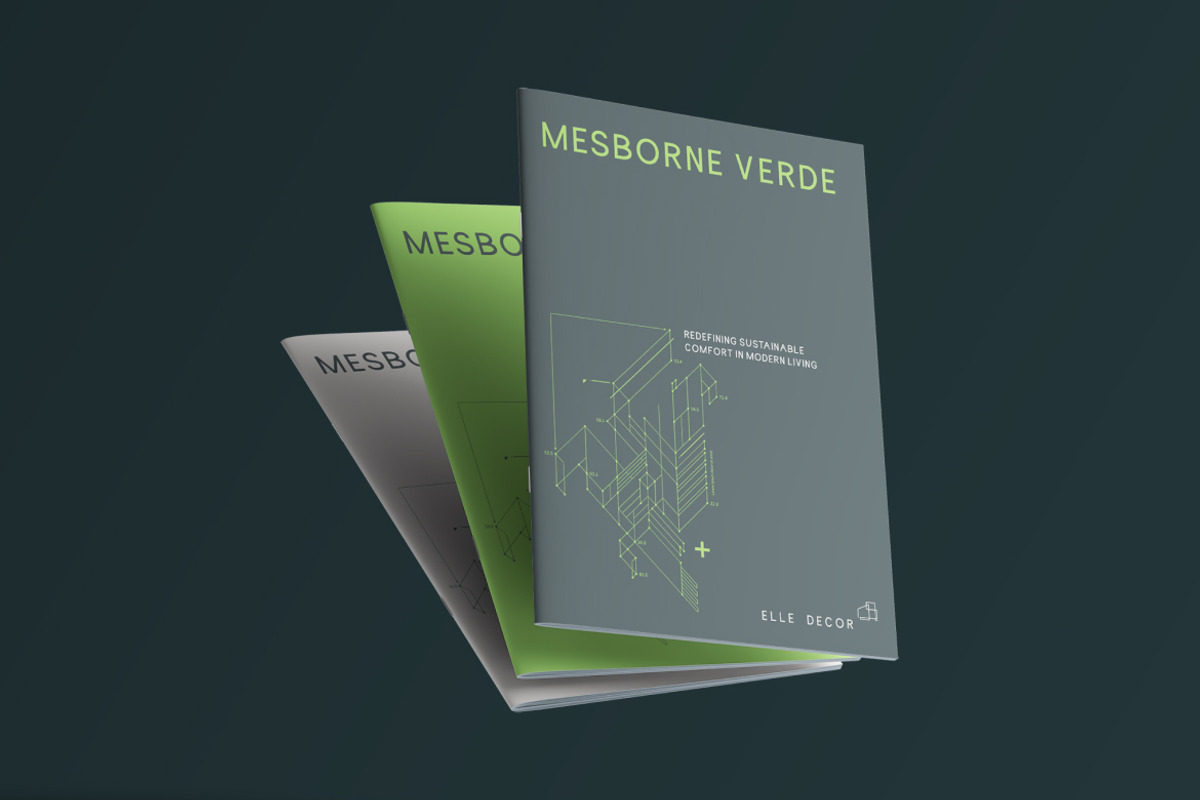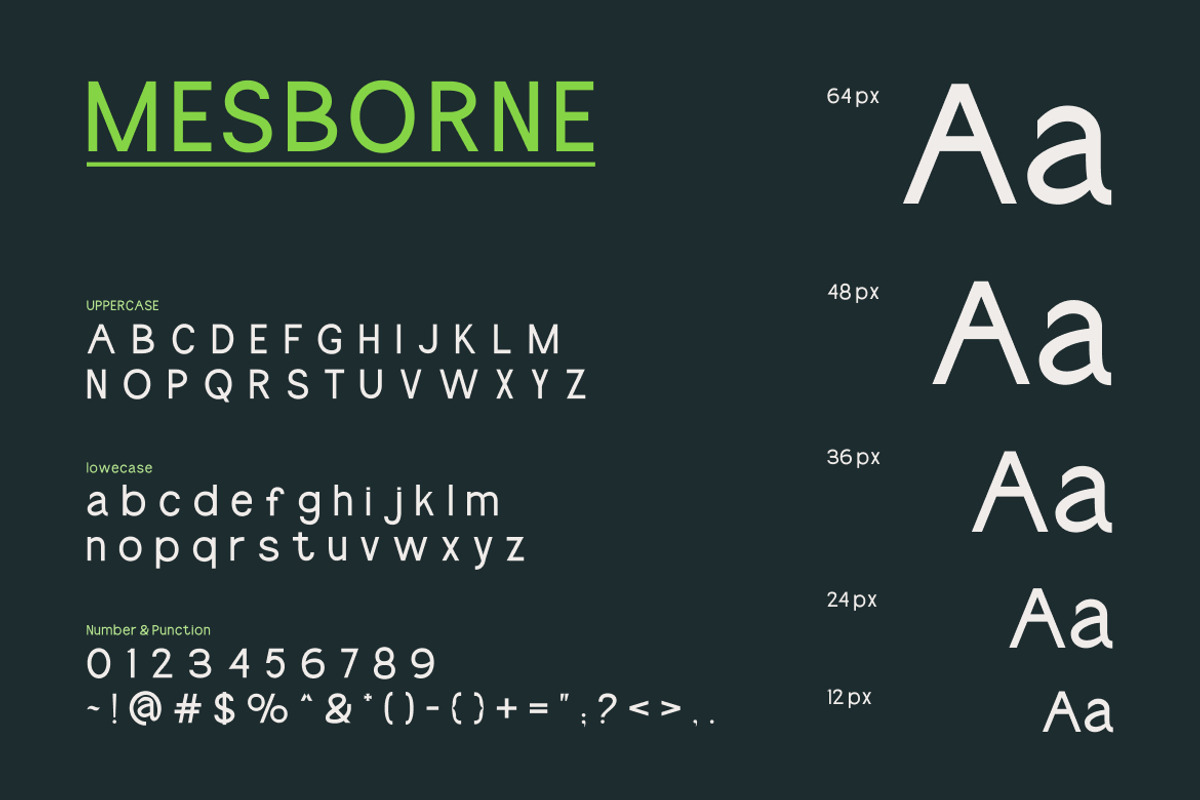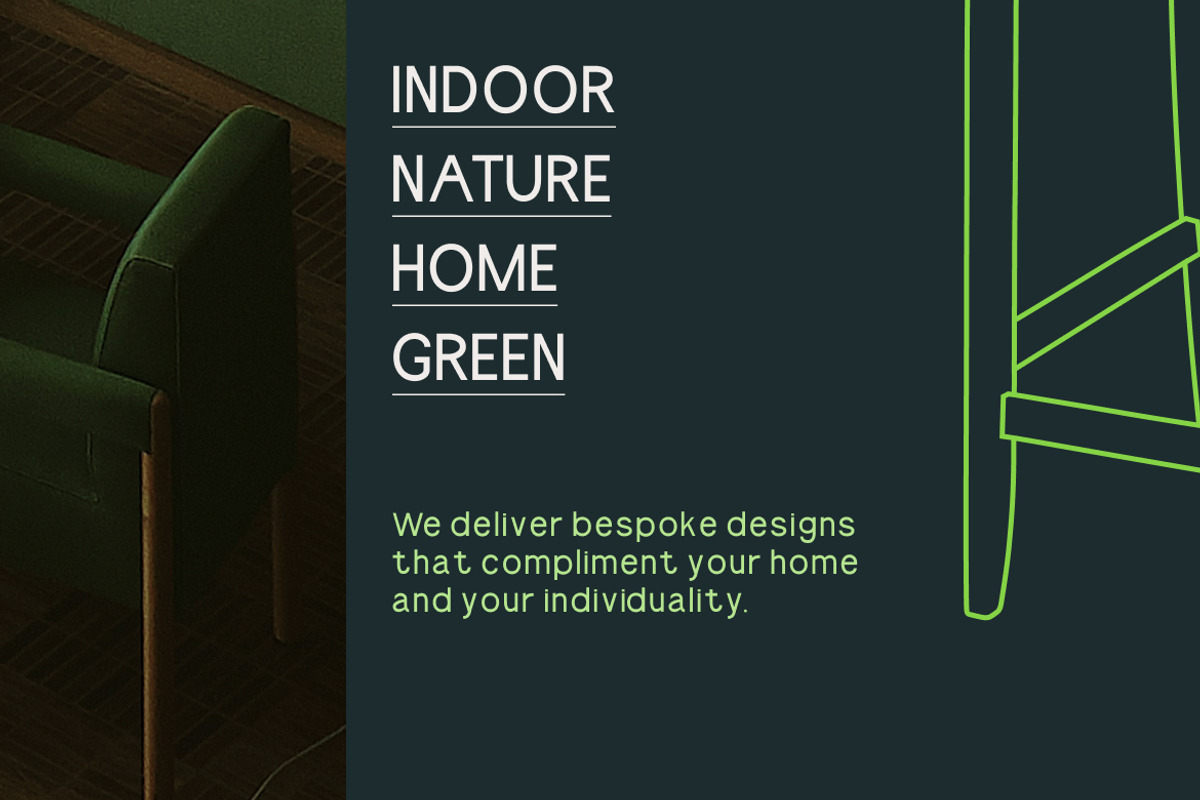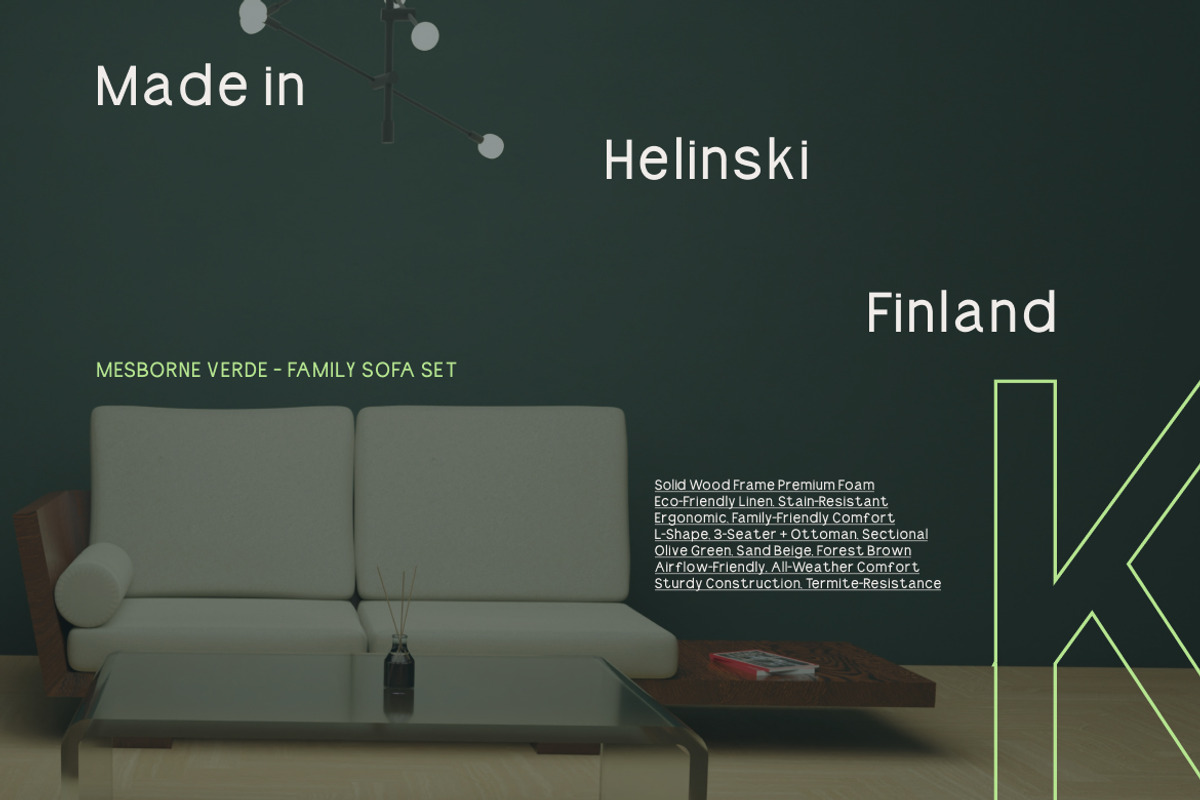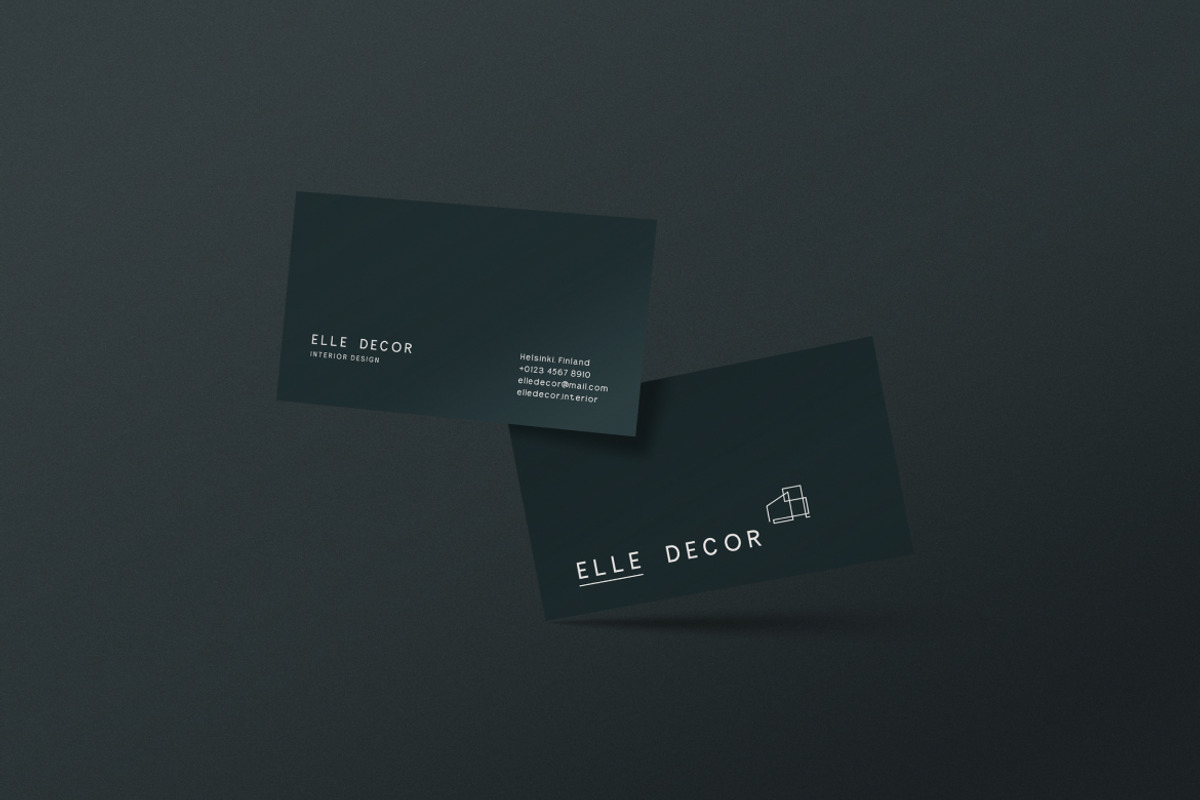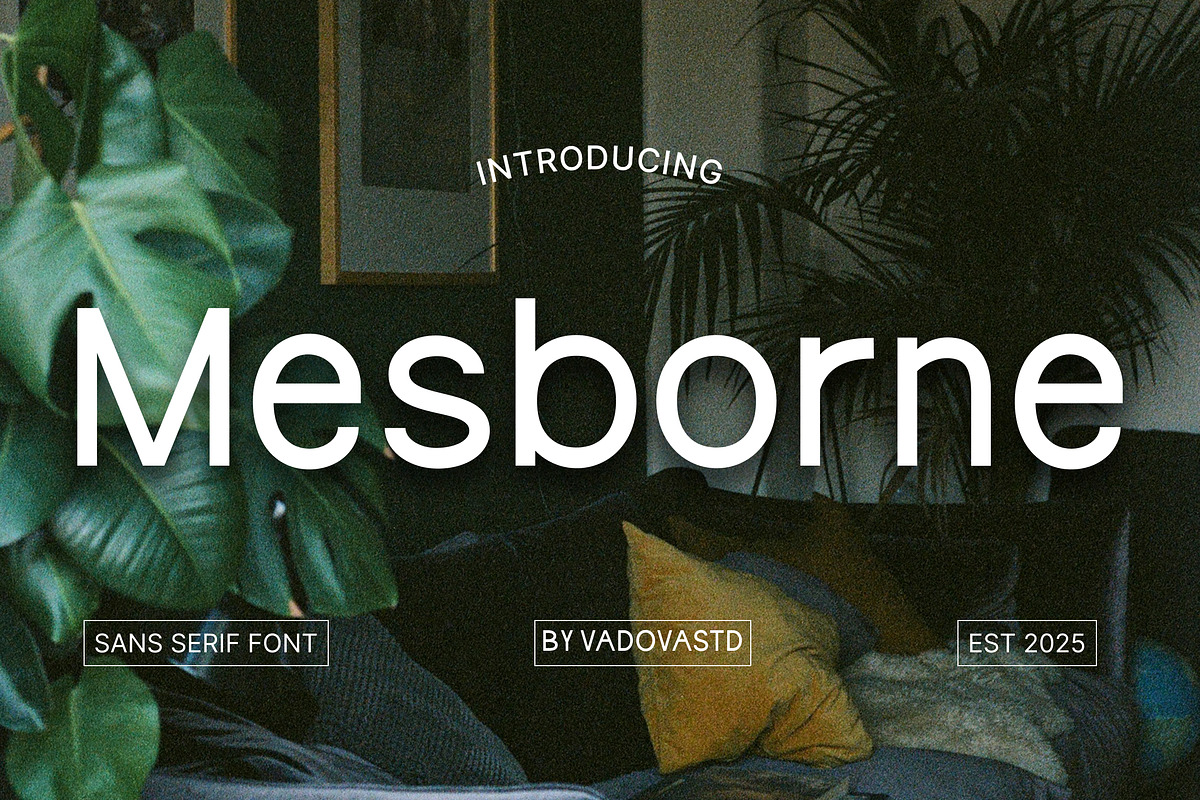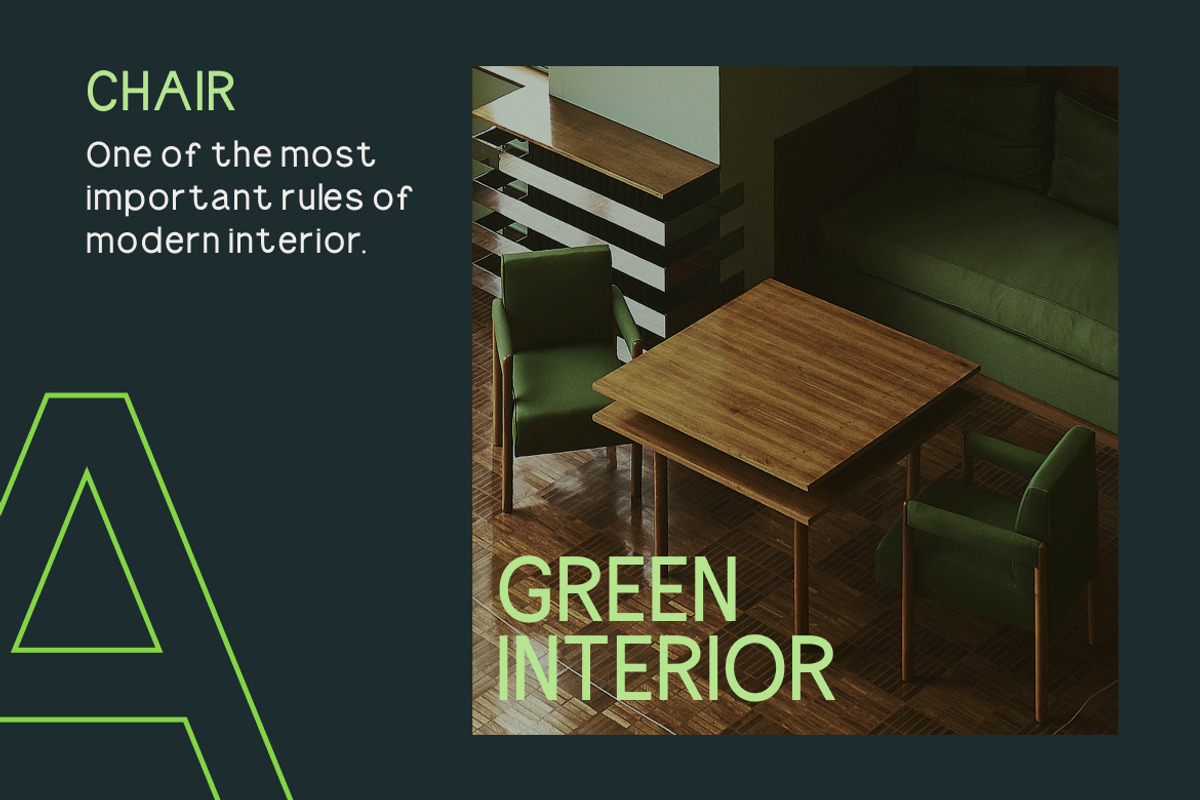
Mesborne – Modern Sans Serif Font
Mesborne is a clean and modern sans serif typeface designed for clarity and versatility. With its minimalist letterforms and balanced proportions, Mesborne offers a strong visual impact without unnecessary complexity. Perfect for branding, digital interfaces, editorial layouts, and everyday design, this font is built to adapt across both screen and print.
Why Choose Mesborne:
Minimalist design for a clean and timeless look
Versatile usability across branding, web, and print projects
Professional yet creative tone that fits multiple industries
Balanced proportions for high readability and modern appeal
Branding & corporate identity
Logo design & startup visuals
Editorial & magazine layouts
Posters, flyers, and business presentations
UI/UX design & digital interfaces
Social media content & advertising campaigns
Modern sans serif style
Clean and sharp letterforms
High readability in all sizes
Works equally well in bold headlines or subtle body text
A universal typeface for everyday creative use
Bring a touch of modern simplicity, clarity, and strength into your projects with Mesborne.